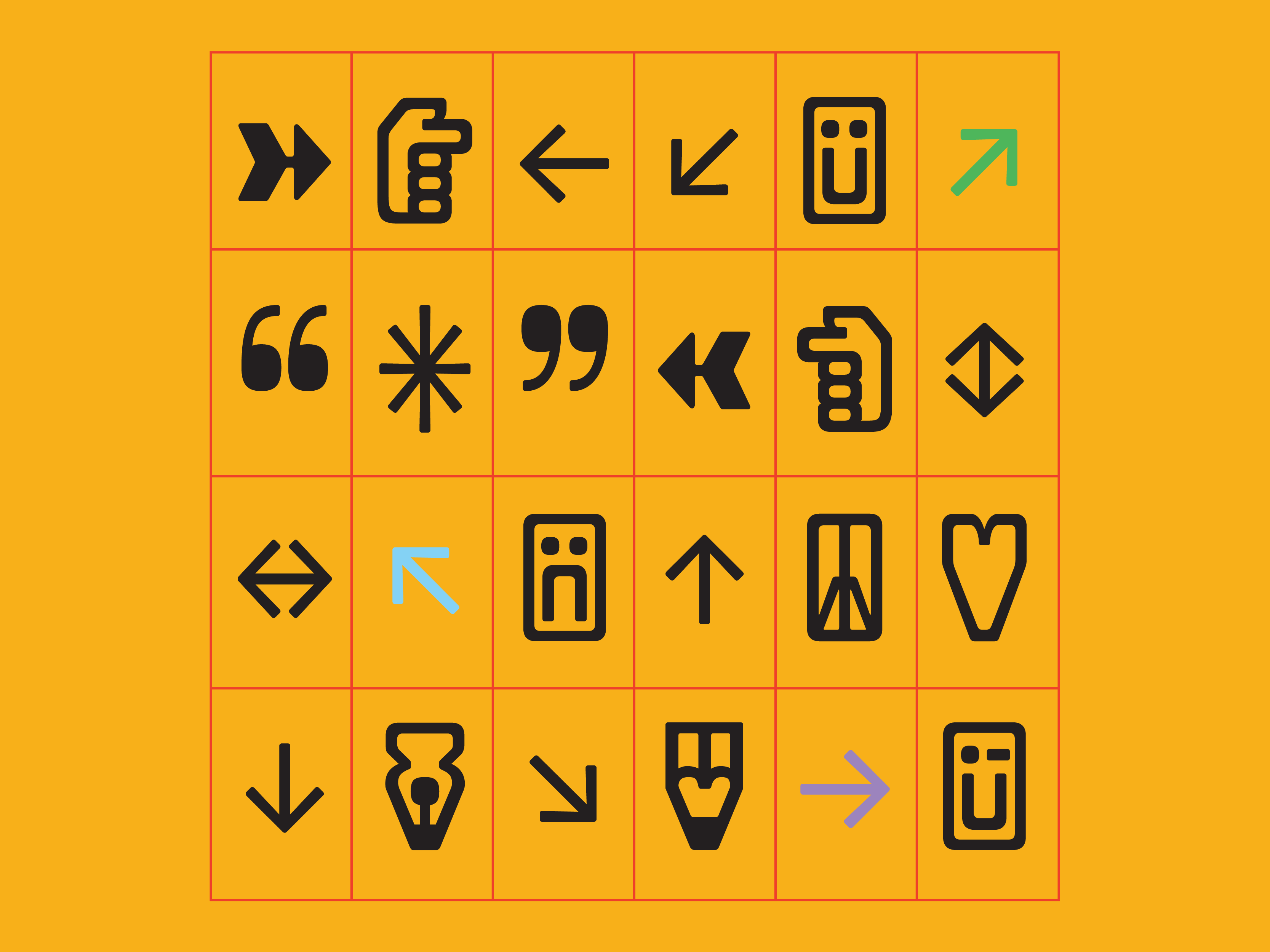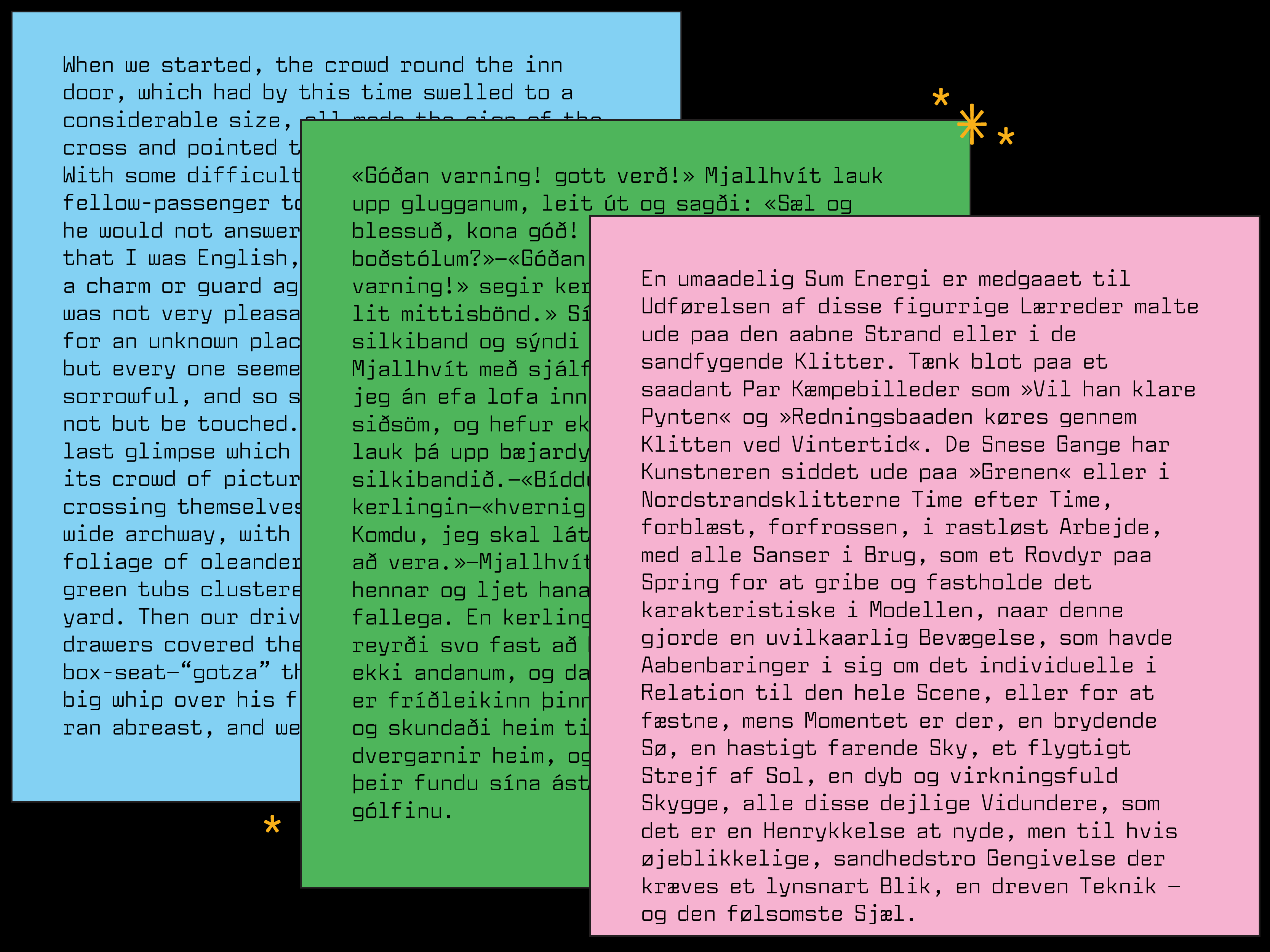
Weightless V1
I found the original source in a zine from an antique store in Palm Springs, CA.
Weightless is a monospace typeface. It is based on Senatorial, a typewriter typeface from Olympia in the 1960s. It feels paradoxical; both old-world and futuristic.  It is great for text but has enough refinement to work well in display settings.
Weightless is currently in-progress! This style (regular) is complete and has extended language support. It also lots of interesting emojis and fun extra glyphs!